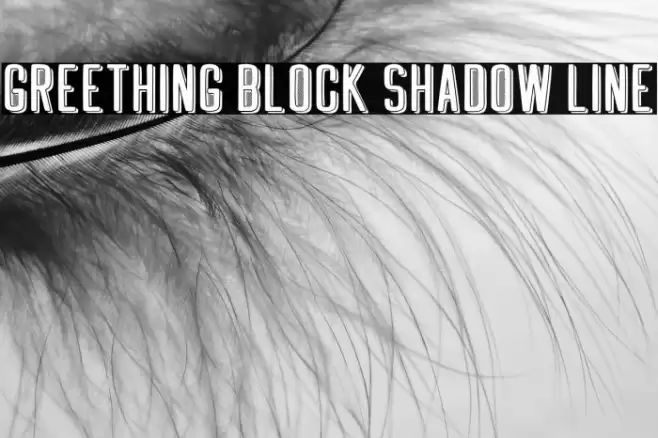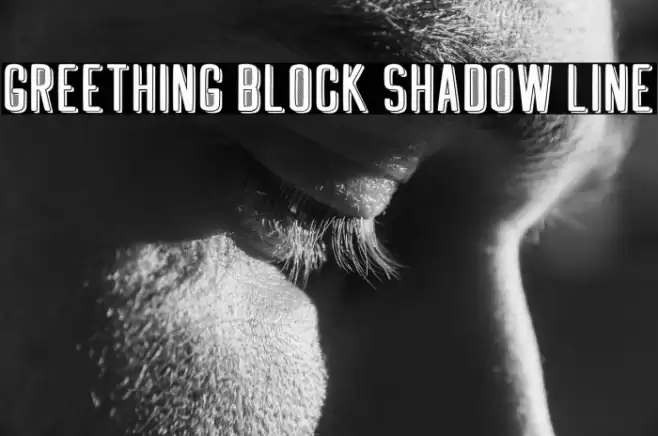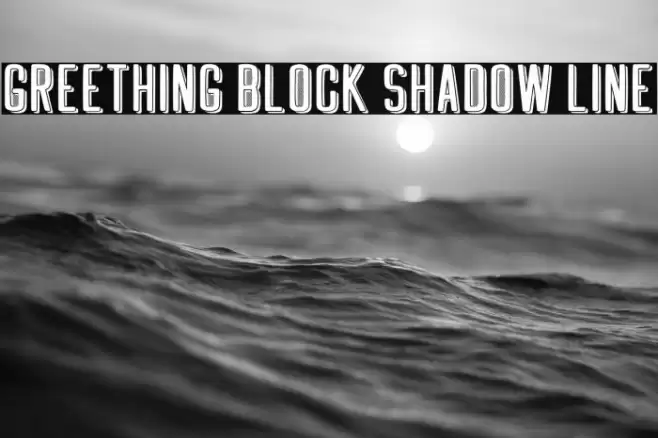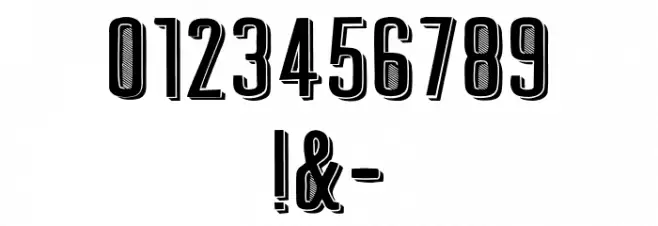
GREETHING BLOCK SHADOW LINE Font
GREETHING BLOCK SHADOW LINE Description
This font features a bold, blocky design with a distinct shadow line effect that gives it a three-dimensional appearance. The uppercase letters are robust and commanding, with a consistent width and height that ensure readability. The shadow lines add depth and a sense of movement, making each character stand out. The numbers and special characters follow the same stylistic approach, maintaining uniformity across the font. This design is both eye-catching and functional, suitable for a variety of creative applications.
A bold, blocky font with a shadow line effect for a 3D appearance from Regular fonts.
- Proposed Projects: Ideal for posters, signage, branding, and any project requiring a strong visual impact.